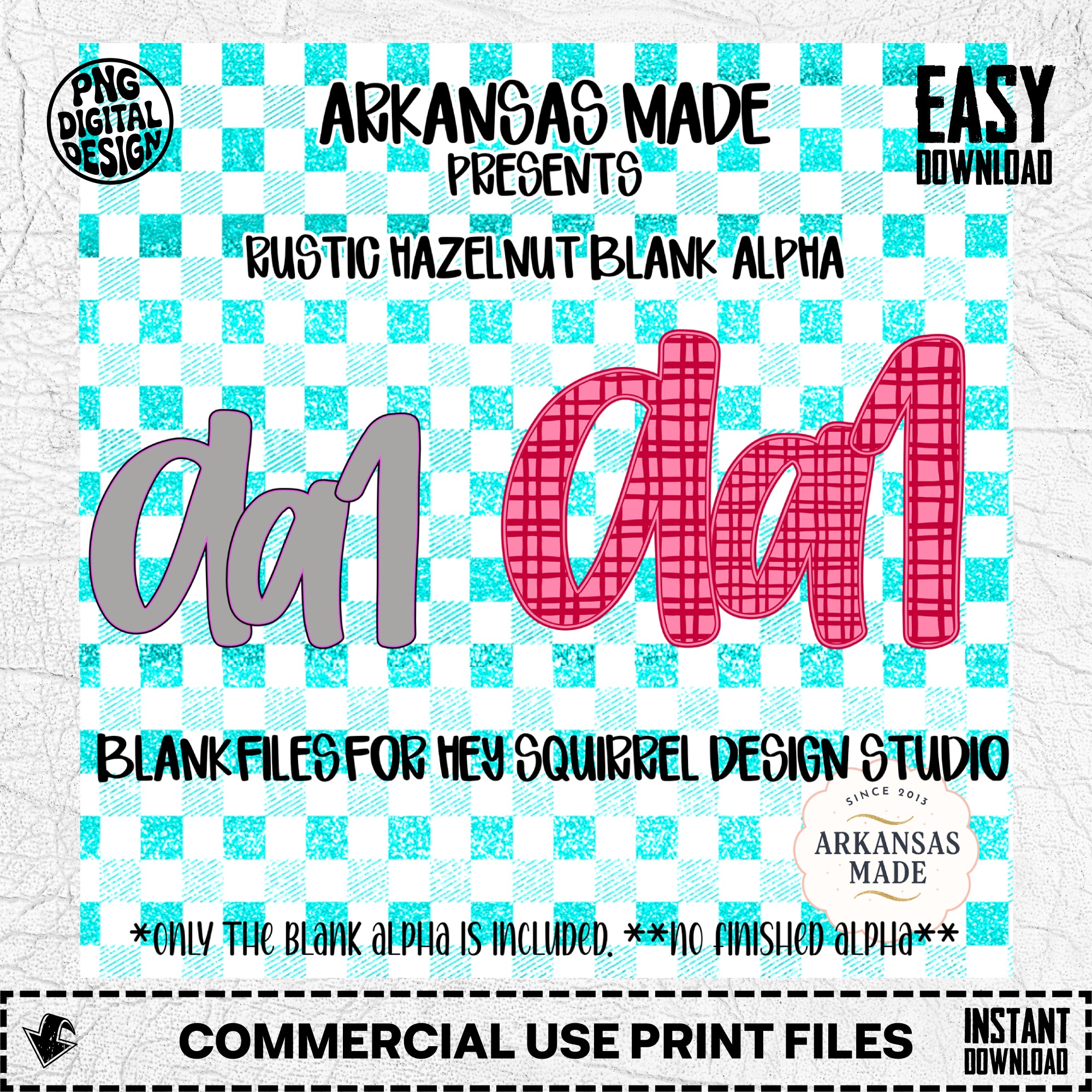
Unlock creativity with this Digital Blank Alpha for Hey Squirrel Design Studio! Perfect for custom projects, sublimation, and graphic design. Embrace the charming rustic hazelnut aesthetic with these versatile blank letters. Ideal for DIY crafters, small business owners, and digital artists looking to personalize their creations. Design unique t-shirts, mugs, signs, or any custom item with ease, making every project distinctly yours.